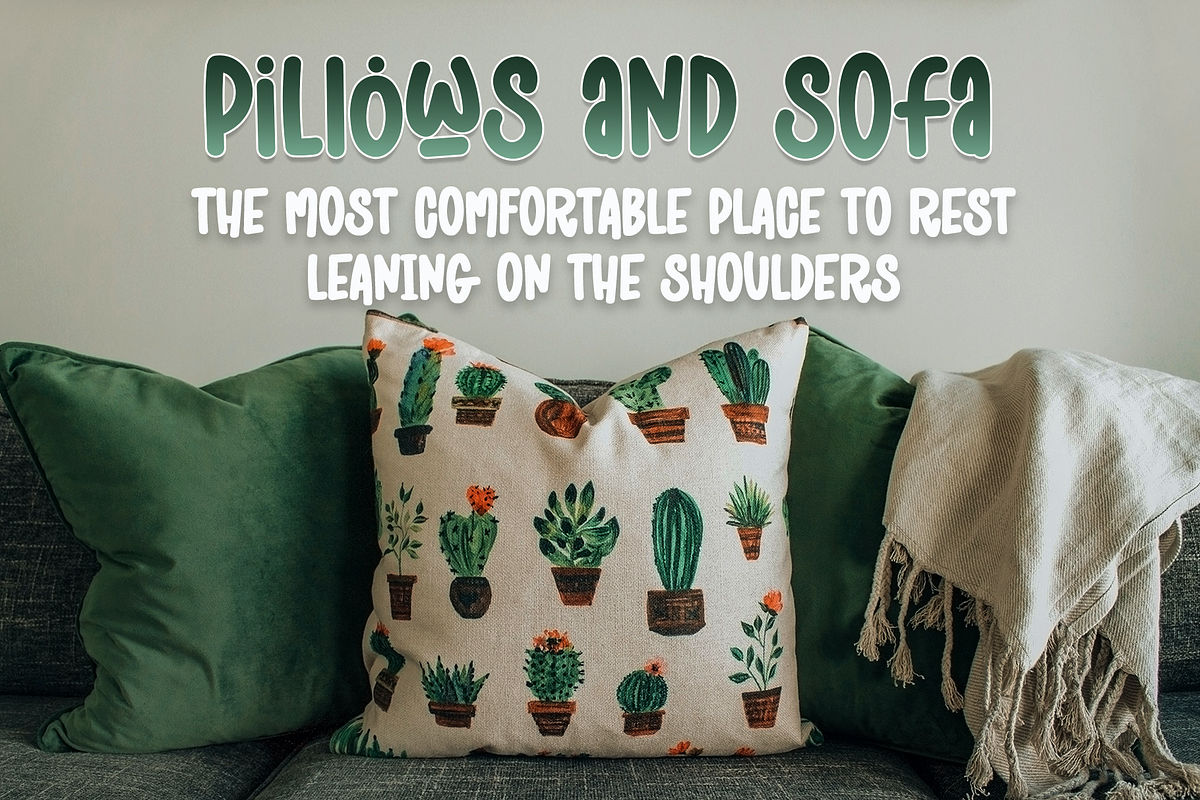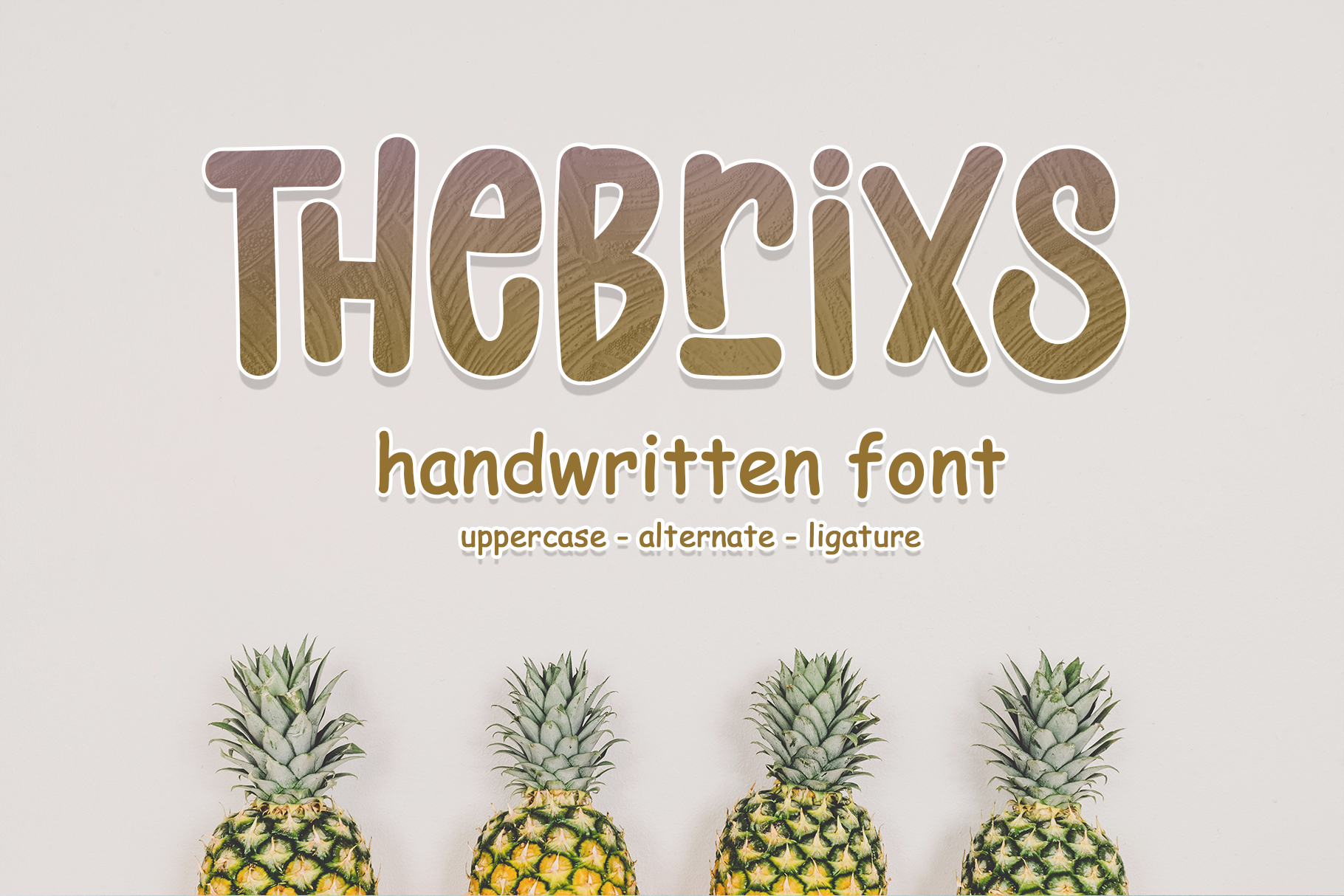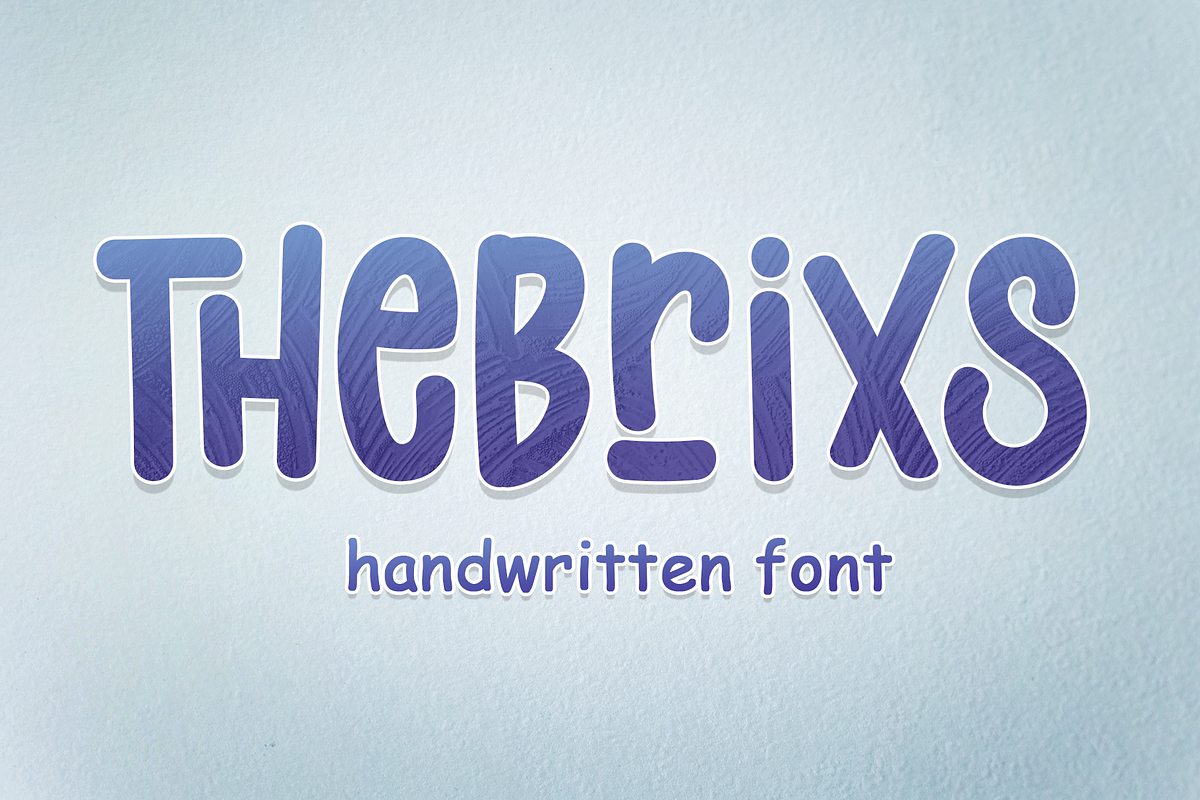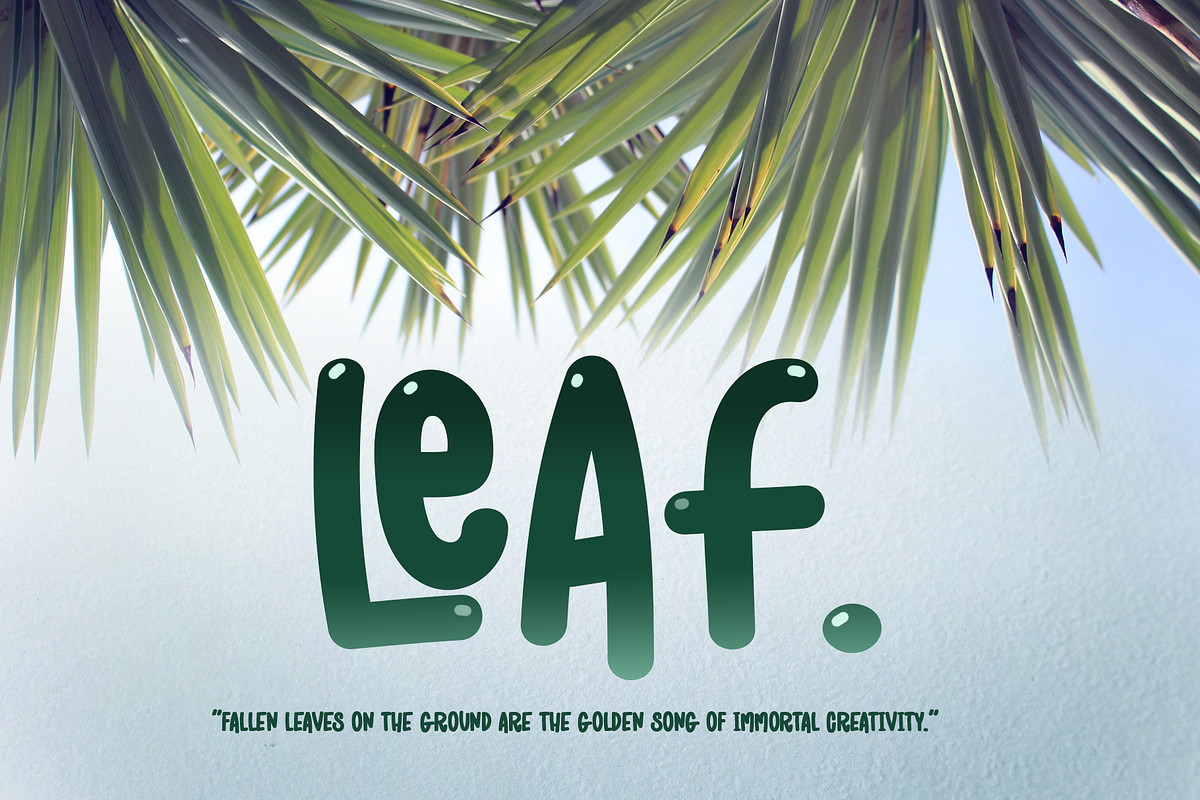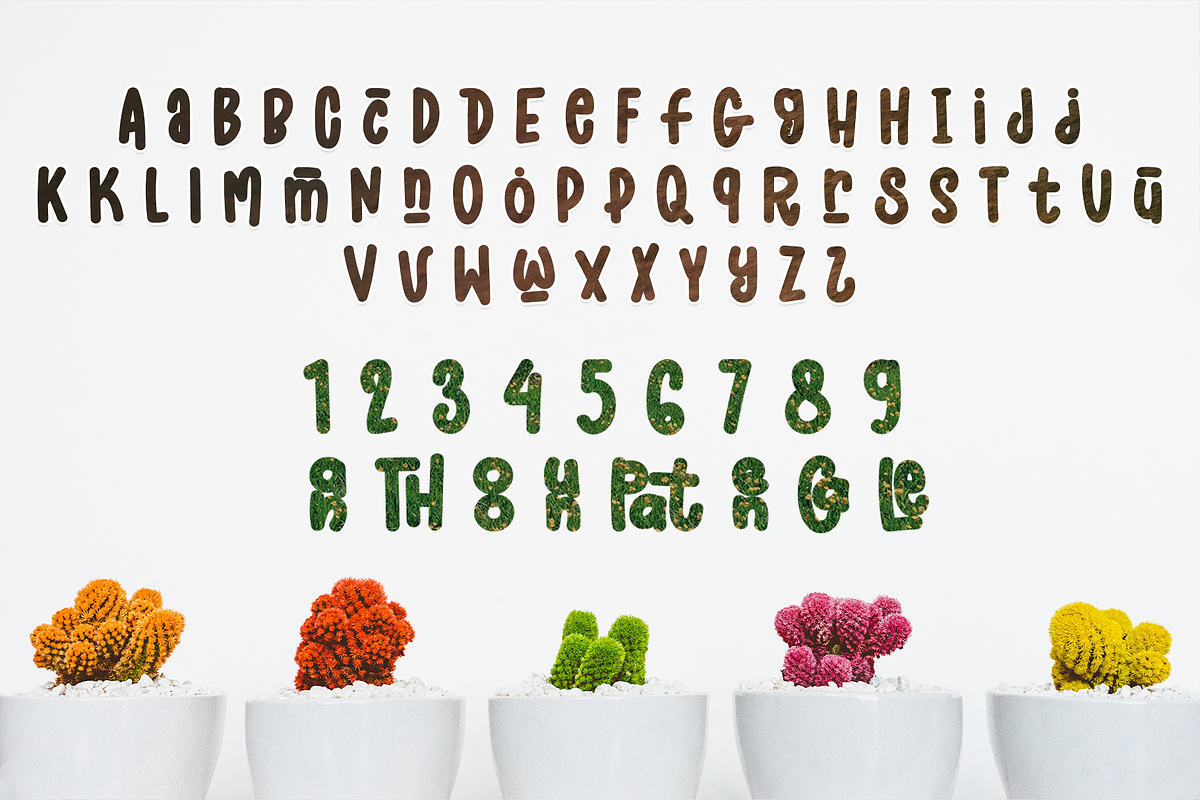
Thebrixs - Handwritten Font
Introducing Thebrixs, a simple, fun, and fresh handwritten font. So perfect for you who needs a typeface for logo designs, magazine, social media, brochure, and many more.